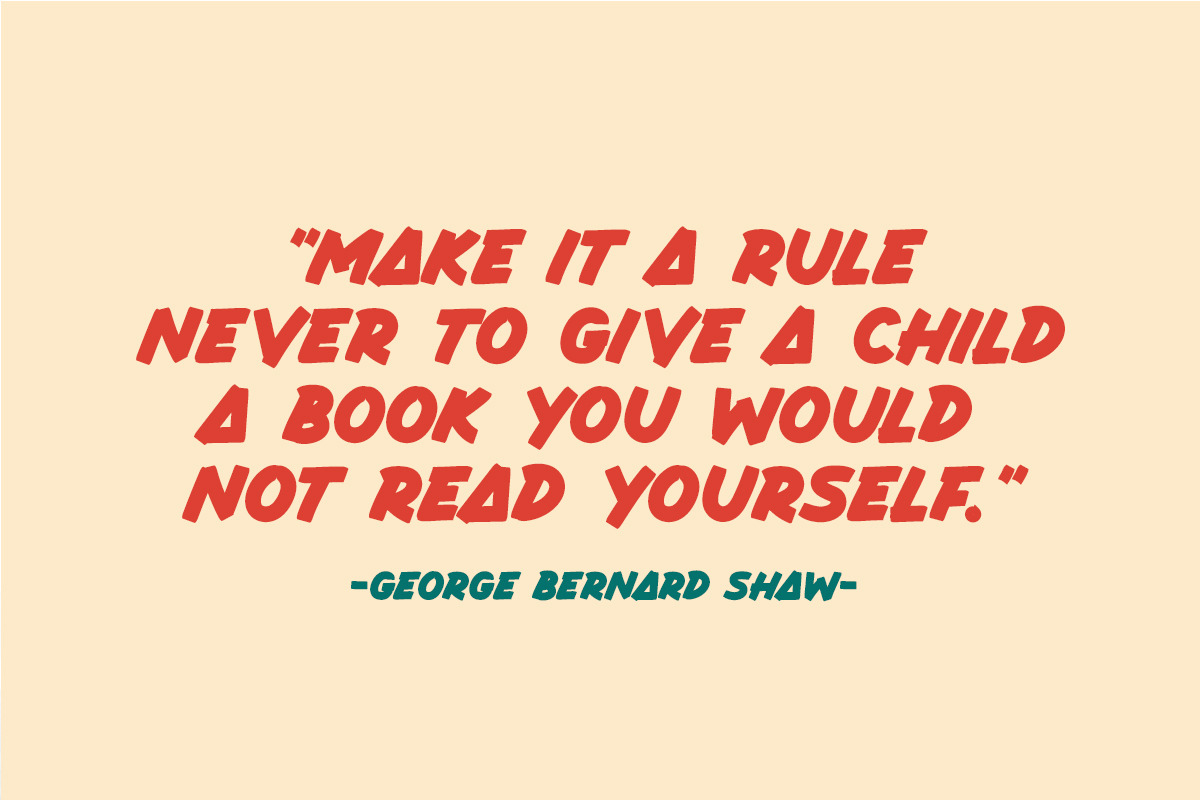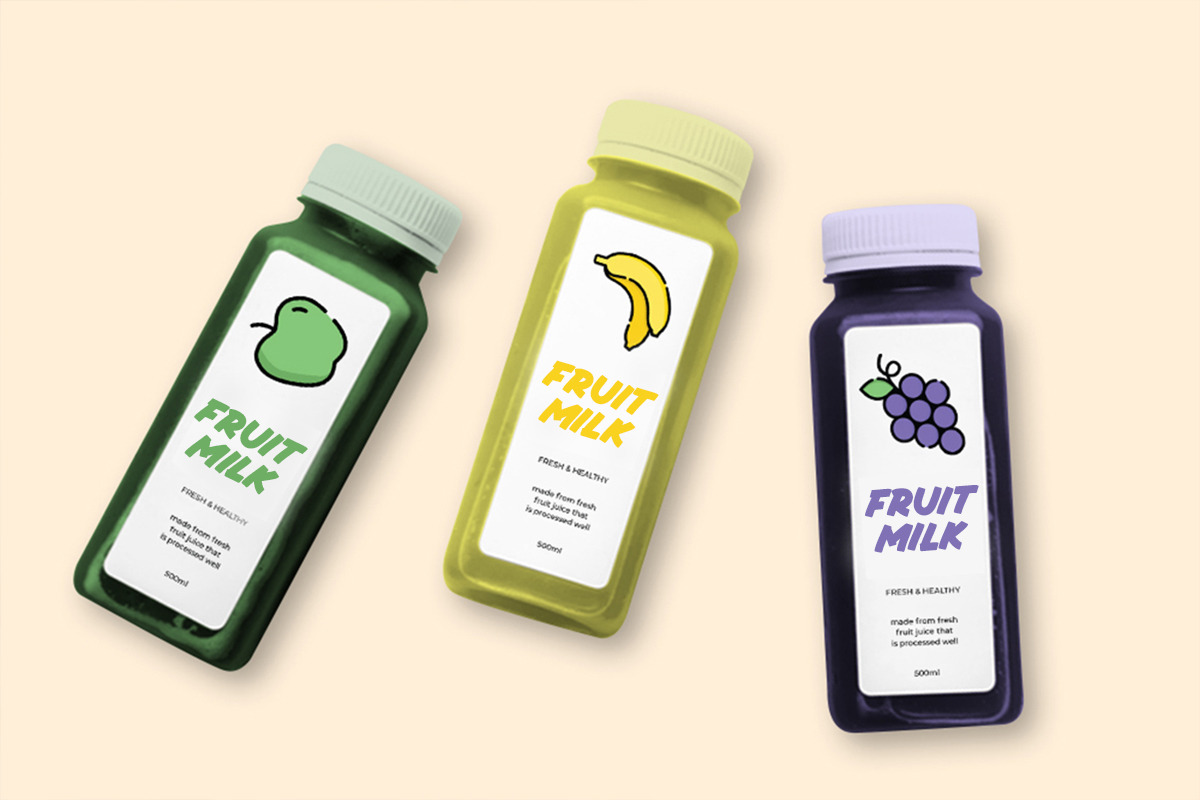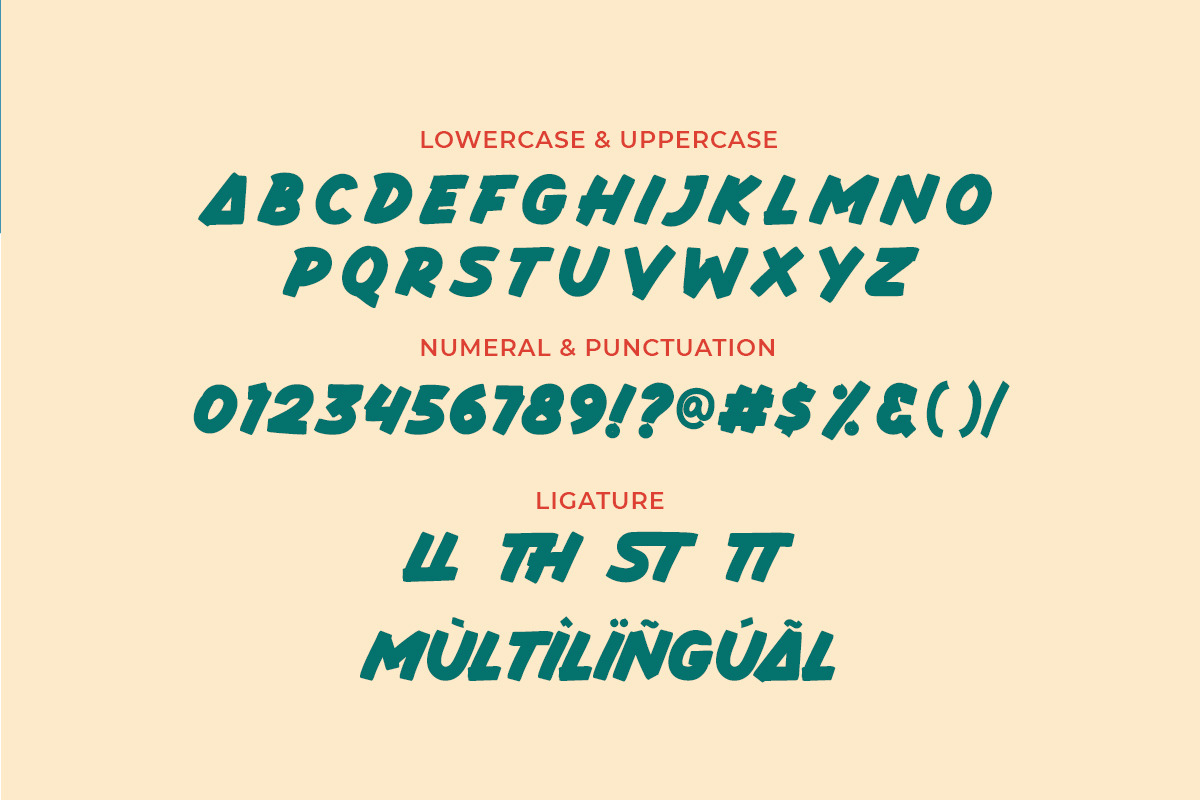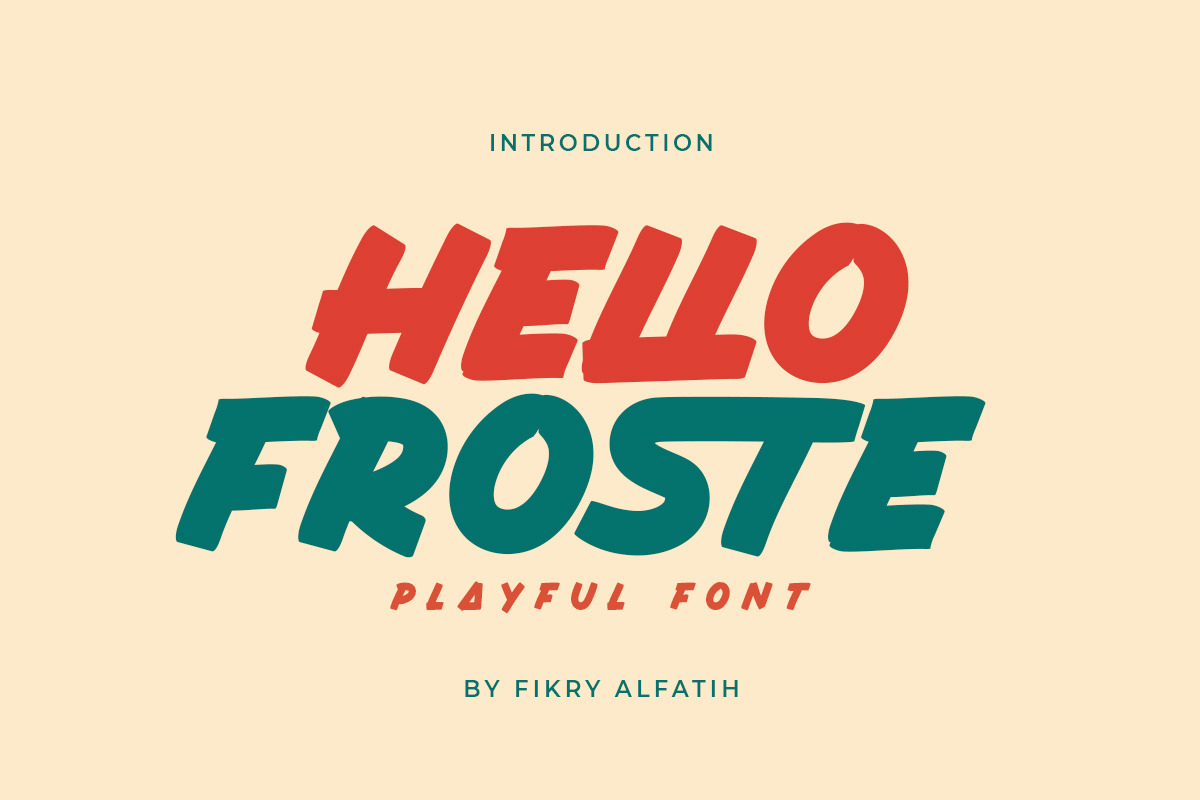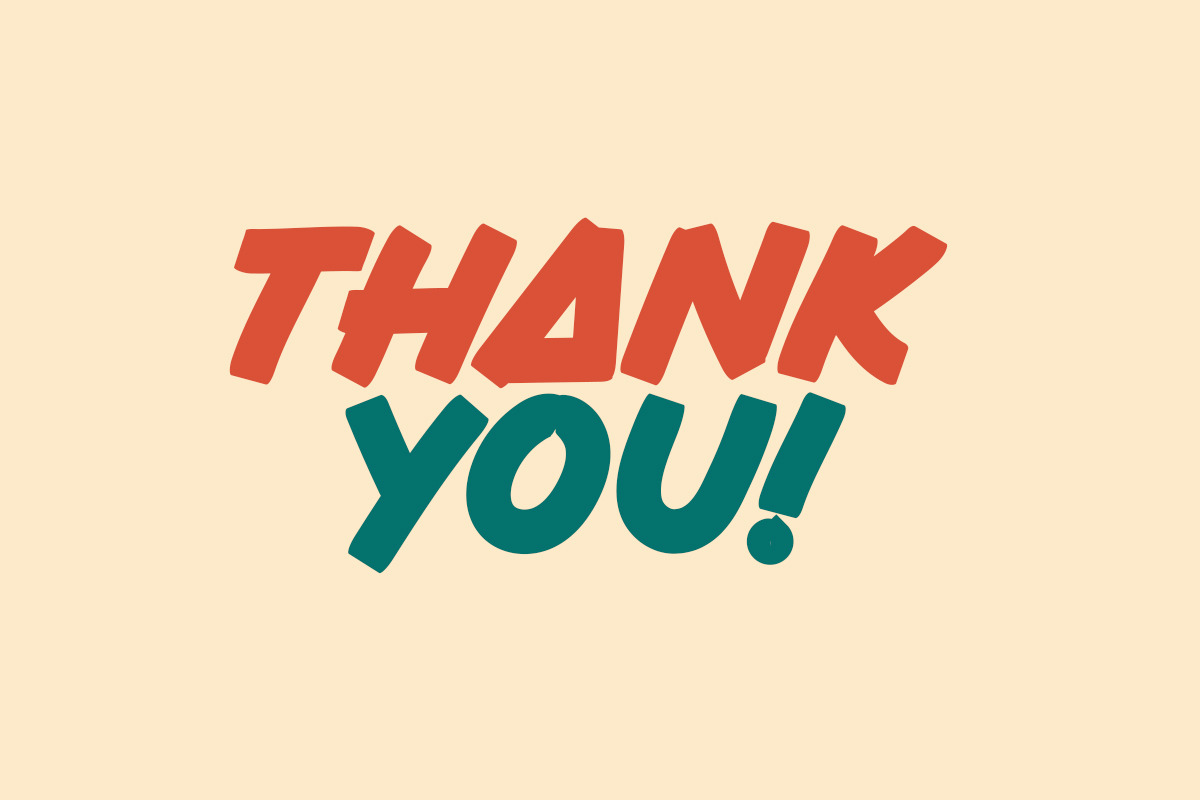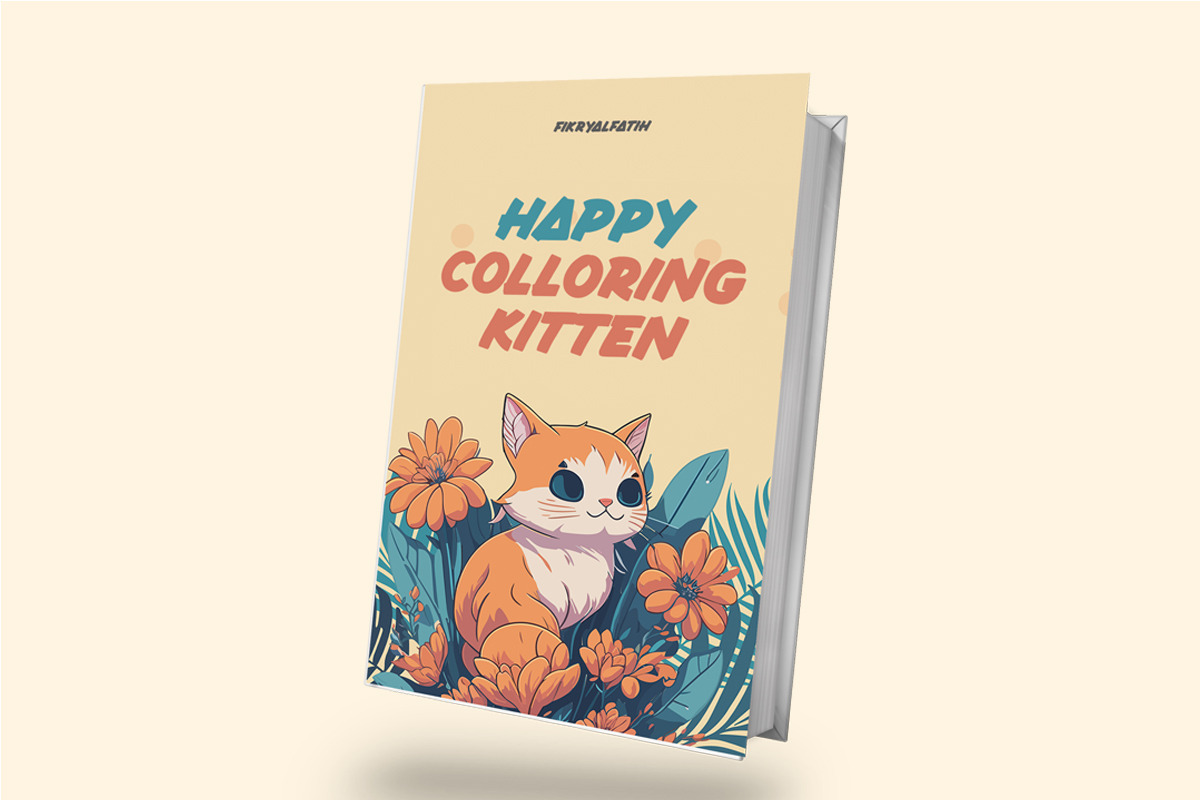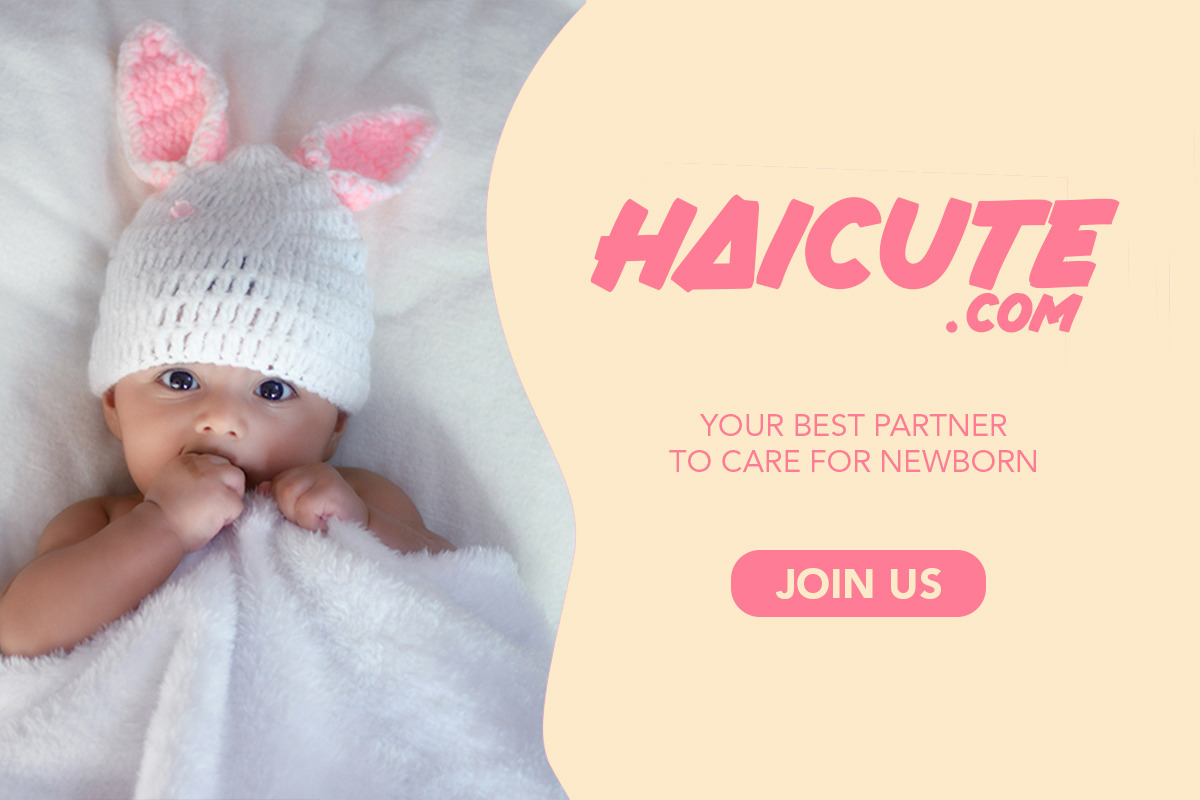
Hello Froste - Playful Font
Hello Froste is a lot of fun displaying the typeface. This font is perfect for all your craft projects that require a sense of vibrancy and excitement. It has a fun look and is perfect as a display font.
It's perfect for branding projects, logos, social media posts, advertising, product packaging, product designs, labels, invitations, stationery, and any project that requires a handwritten feel.